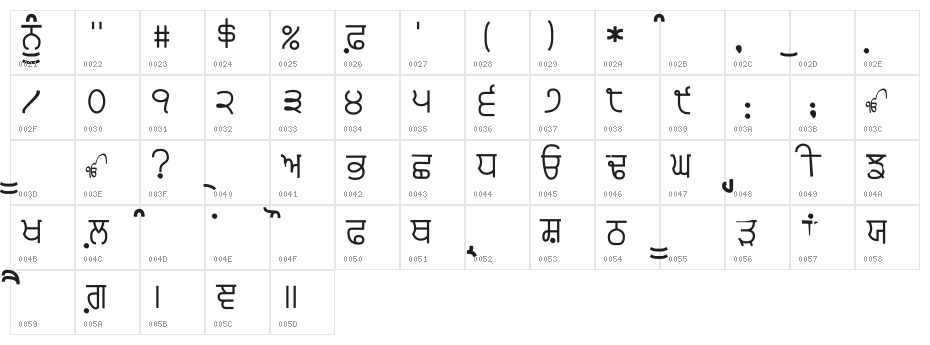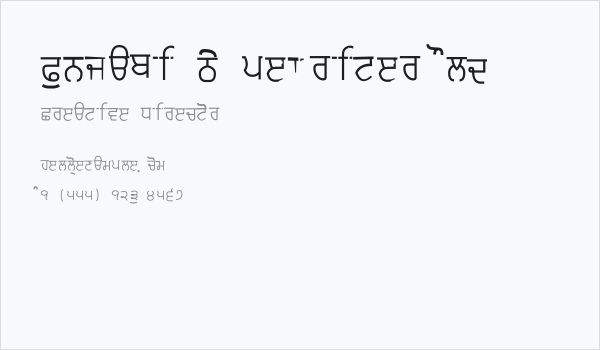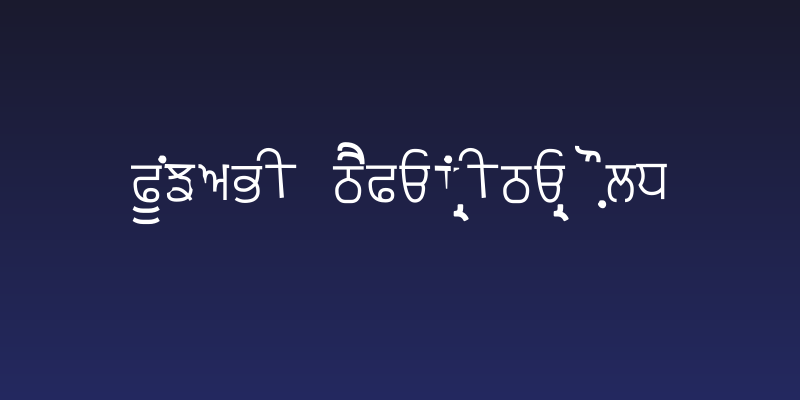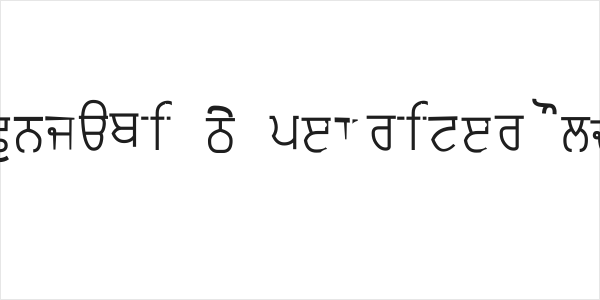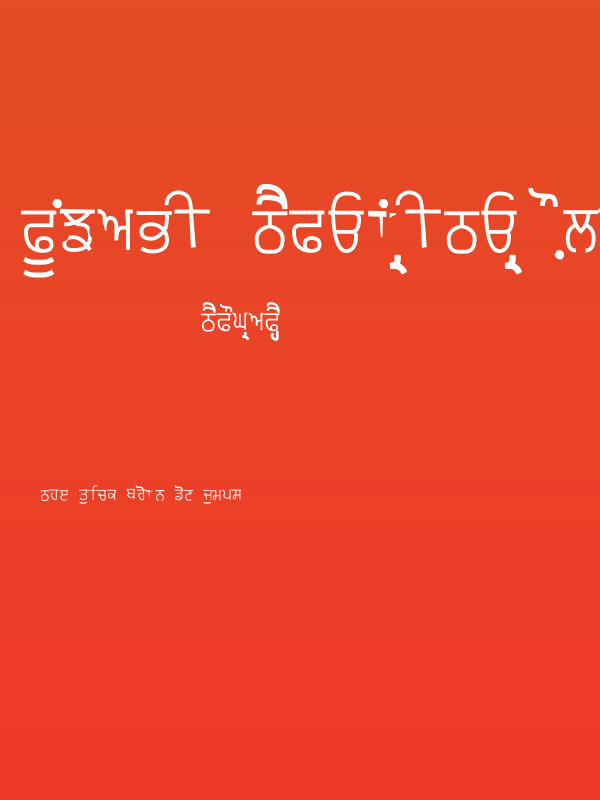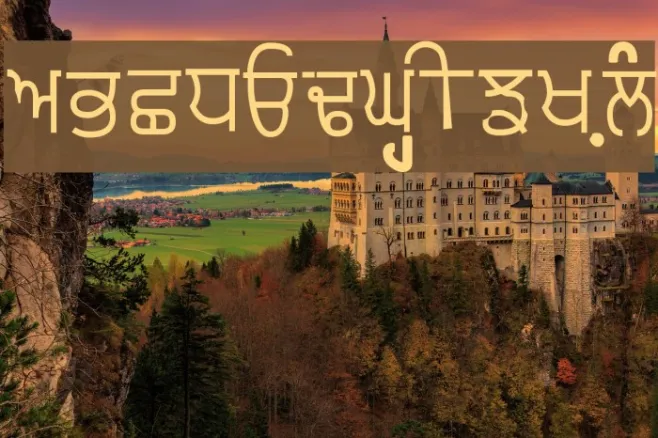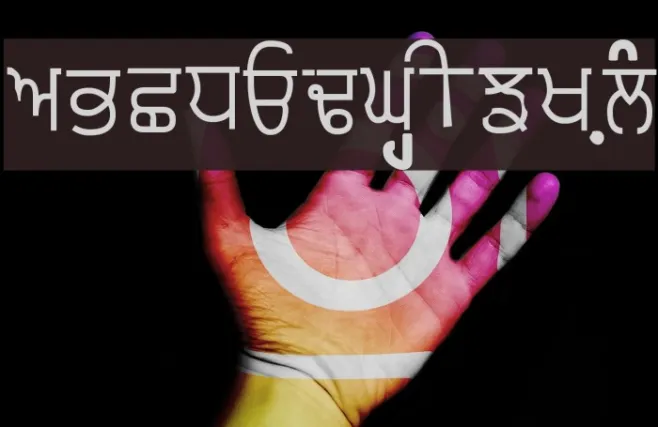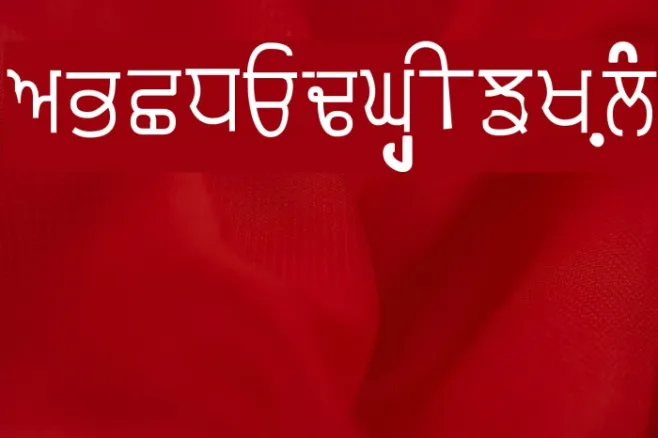
Punjabi Typewriter Old Font
Punjabi Typewriter Old Description
This typeface is a traditional Punjabi typewriter style, characterized by its distinct and classic appearance. The letters are bold and have a mechanical feel, reminiscent of old typewriter fonts. The strokes are consistent in thickness, providing a uniform look across all characters. The font includes a full set of Gurmukhi script characters, numerals, and a variety of punctuation marks and symbols. The design is straightforward, with minimal embellishments, making it highly readable and suitable for formal documents or any context where clarity is paramount.
| Use Case | Body text, Documents |
| Proposed Projects | Ideal for creating documents in Punjabi, educational materials, or any project requiring a traditional typewriter aesthetic. |